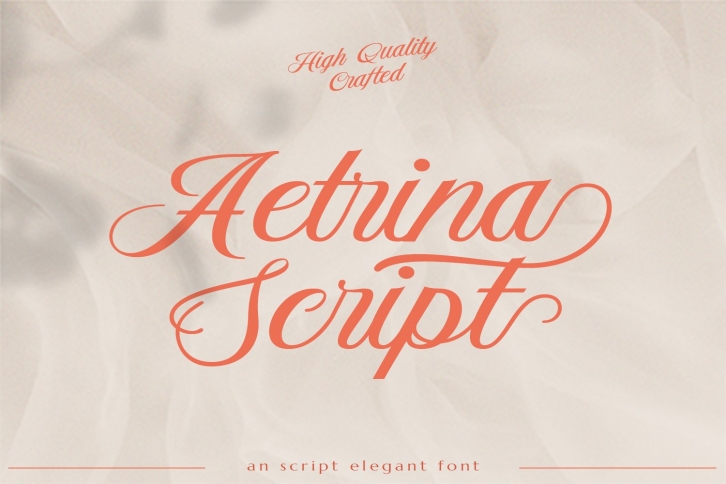
Aetrina Elegant Script Display is a gorgeous font that was realeased on August 16, 2020. The font can be used in many style contexts and design environments. Perfect for invitations, magazines, websites, logos, and more! It was designed by Moovied Co and the file size is 14.20 MB. Thanks for checking out this font!